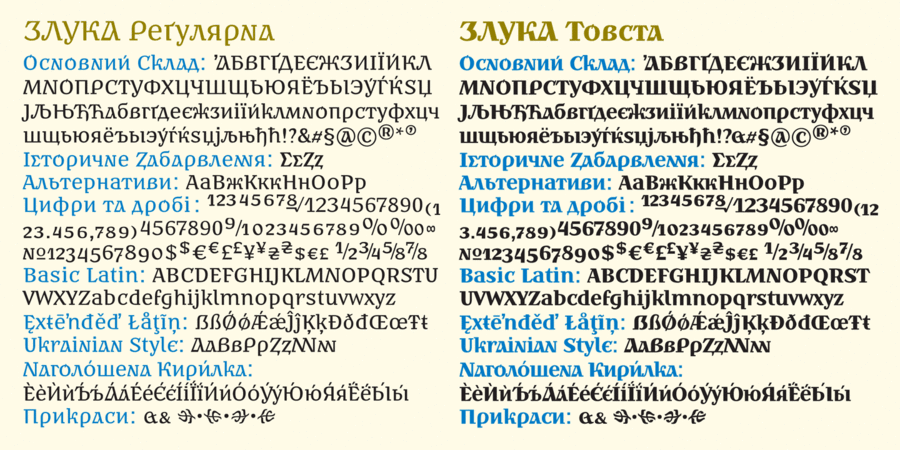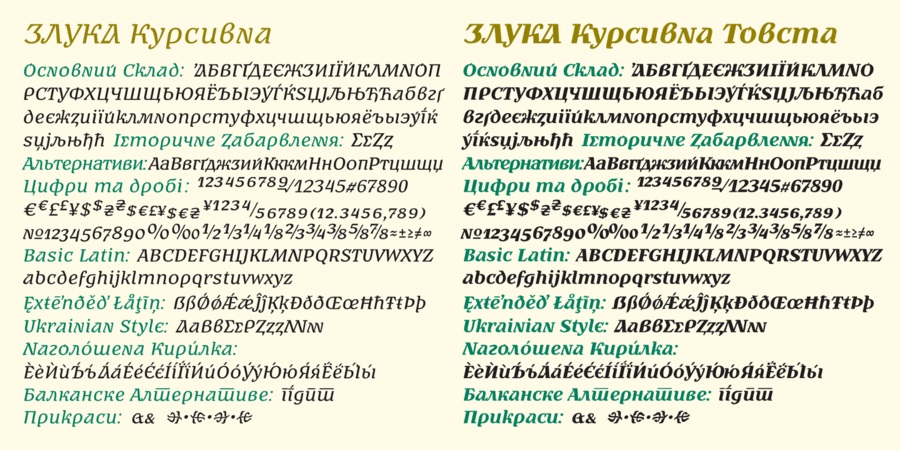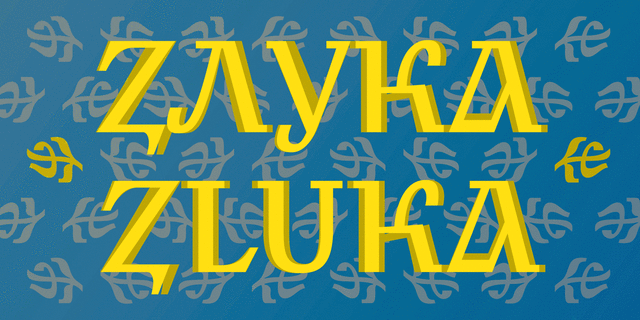
Zluka (6 fonts)
This font family is based on the lettering of Petro Kholodny, who apparently relied on the legacy of Heorhiy Narbut and Mark Kyrnarsky, who began an expressive, but tragically interrupted with the history of the Ukrainian Republic, style of the Ukrainian typography. The proposed project is a full-fledged font family with 6 font styles. The font is named after a significant event for Ukraine – the reunification of the Western Ukrainian People's Republic and the Ukrainian People's Republic into a single independent Ukrainian People's Republic, January 22, 1919. The typeface contains modern Slavic Cyrillic with the possibility of accents, modern European Latin, historical and stylistic alternatives, Macedonian-Serbian italics, some decorative elements. Zluka is designed for a wide range of design purposes: from logos and corporate identity to body text in newspapers, magazines, books and websites of relevant subject. The typeface was designed by Gennady Zarechnyuk and Victor Kharyk with support of Serhiy Tkachenko in 2018.
Associations for font family ZlukaTypeface personality and character:
conservative, traditional, pretentious, artistic, sharp, masterful, high-quality, historical, humanitarian, dynamic, autumn, ancient, expressive, distinctive, solid, crisp, original, cutting, picturesque, nostalgic, stable, Vintage, craft brewed, old-fashioned, good quality, old school, lasting, reliable, serious, interesting, self-assured, strange, handicraft, convincing, strong, significant, important, solemn, severe, rigid, stone
library, art, museum, literature, heraldry, fall, trophy, reward, castle, bank note, Cossack, hetman, craft, tobacco, tattoo, history, theater, alcohol, reconstruction, monument, memorial, embroidered, ethnography, coin, tourism, legend, cards, graphics, illustration, landscape, sculpture, snack, spice, beer, tavern, blacksmith, bread, fair, souvenir, meat, flag, granite Typeface exhibits stylistic traits: